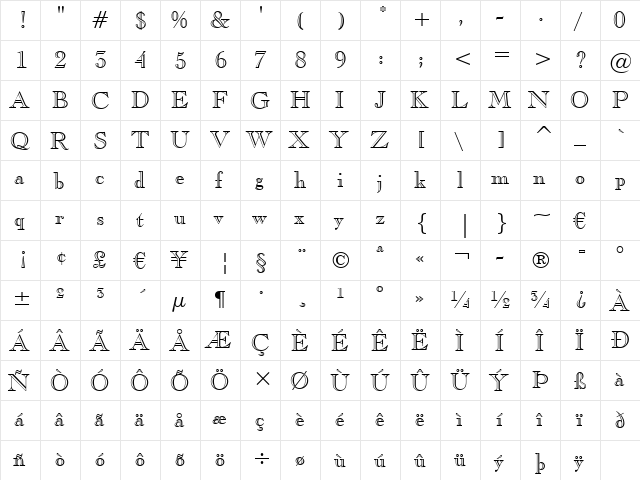
CaslonOpnface BT Regular
CaslonOpnface BT is a composed and adaptable typeface that performs quietly and consistently across a wide range of design contexts.